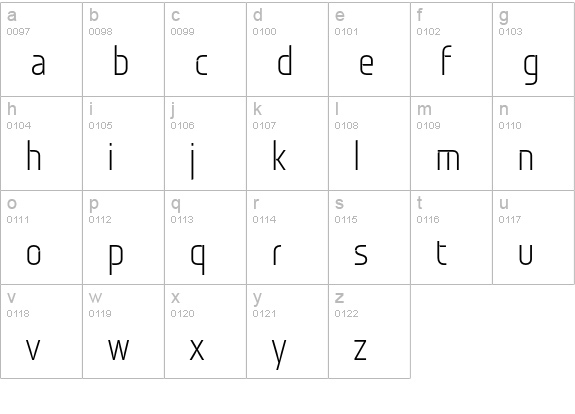
Monitorica Font Details
Introducing Monitorica, a stunningly elegant font that effortlessly combines sophistication and modernity. This versatile typeface is perfect for a wide range of design projects, from branding and packaging to editorial and web design. With its sleek and clean lines, Monitorica exudes a sense of professionalism and attention to detail. Its balanced proportions and graceful curves make it a pleasure to read, ensuring maximum legibility in both print and digital formats. But what sets Monitorica apart is not just its impeccable design, but also its accessibility. This remarkable font is available for free download at FontsMarket.com, allowing designers and creatives alike to bring their visions to life without breaking the bank. Whether you're designing a logo for a high-end fashion brand or crafting a minimalist website for a tech startup, Monitorica will elevate your project to new heights. Its versatility knows no bounds, effortlessly adapting to any style or aesthetic. So why wait? Experience the beauty and functionality of Monitorica for yourself. Download this exceptional font today, free of charge, at FontsMarket.com. Unleash your creativity and let Monitorica be the perfect companion for all your design endeavors.